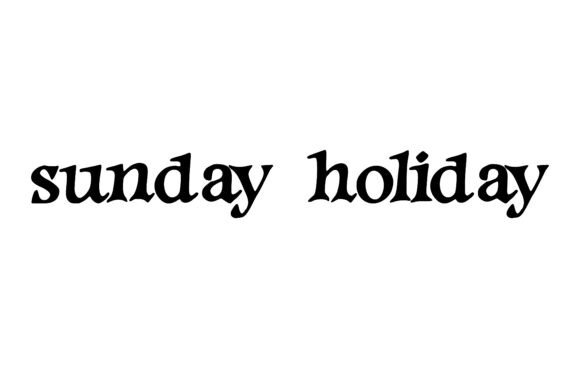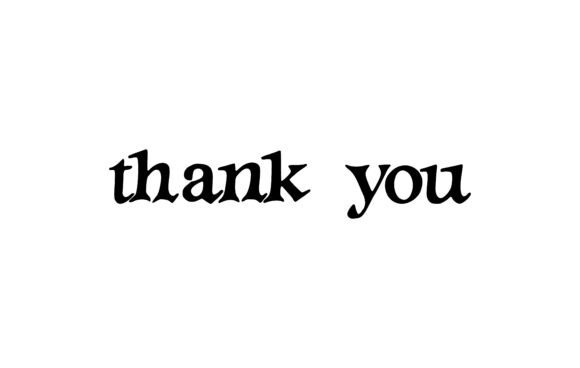
Introducing Artisajoy Font: The Perfect Handwritten Font for Your Creative Projects
Are you a designer or crafter looking for a unique and authentic handwritten font to elevate your creative projects? Look no further than ArtisaJoy font! This beautifully designed font is perfect for adding a romantic touch to your designs, and its legibility makes it ideal for use as both title and body text.
What Makes ArtisaJoy Font Special?
ArtisaJoy font is an expertly crafted handwritten font that exudes a sense of elegance and sophistication. Its authentic, hand-written feel makes it perfect for a wide range of design projects, from magazine headlines and social media graphics to branding, wedding invitations, and cards.
One of the standout features of ArtisaJoy font is its versatility. Whether you’re looking to create a bold and eye-catching title or a more subtle and understated body text, this font is up to the task. Its legibility ensures that your message will be conveyed clearly and effectively, making it perfect for designs where communication is key.
Uses for ArtisaJoy Font
So, what can you use ArtisaJoy font for? The possibilities are endless! Here are just a few ideas to get you started:
- Magazine Headlines: Add a touch of elegance and sophistication to your magazine headlines with ArtisaJoy font.
- Social Media Graphics: Create eye-catching social media graphics that stand out from the crowd with this beautiful handwritten font.
- Branding: Use ArtisaJoy font to create a unique and memorable brand identity that sets you apart from the competition.
- Wedding Invitations: Add a romantic touch to your wedding invitations and save-the-date cards with this gorgeous handwritten font.
- Cards and Stationery: Create beautiful cards and stationery that are perfect for special occasions, such as birthdays, anniversaries, and holidays.
Why Choose ArtisaJoy Font?
So, why should you choose ArtisaJoy font for your creative projects? Here are just a few reasons:
- Unique and Authentic: ArtisaJoy font is a truly unique and authentic handwritten font that will add a touch of personality to your designs.
- Legible and Versatile: This font is both legible and versatile, making it perfect for use as title or body text.
- Elegant and Sophisticated: ArtisaJoy font exudes an air of elegance and sophistication, making it perfect for designs where you want to make a lasting impression.
- Easy to Use: This font is easy to use and can be easily integrated into your design workflow.
Tips for Using ArtisaJoy Font
Here are a few tips for getting the most out of ArtisaJoy font:
- Experiment with Different Sizes: Don’t be afraid to experiment with different font sizes to find the perfect fit for your design.
- Pair with Other Fonts: Try pairing ArtisaJoy font with other fonts to create a unique and visually appealing combination.
- Use for Headlines and Body Text: Use ArtisaJoy font for both headlines and body text to create a cohesive and polished look.
In conclusion, ArtisaJoy font is a beautiful and authentic handwritten font that is perfect for designers and crafters looking to add a touch of elegance and sophistication to their creative projects. Its versatility, legibility, and unique feel make it ideal for a wide range of design applications, from magazine headlines and social media graphics to branding, wedding invitations, and cards. So why wait? Download ArtisaJoy font today and take your creative projects to the next level!